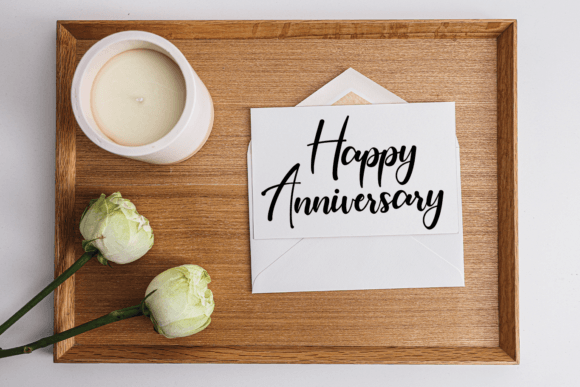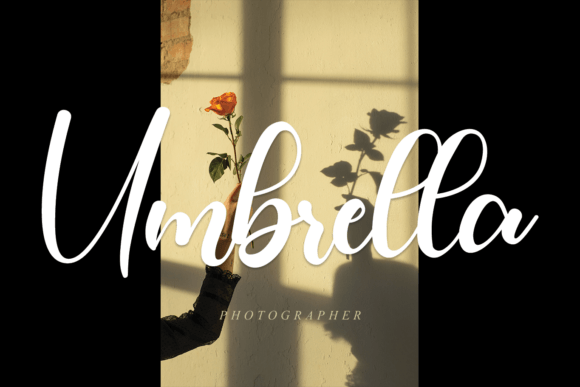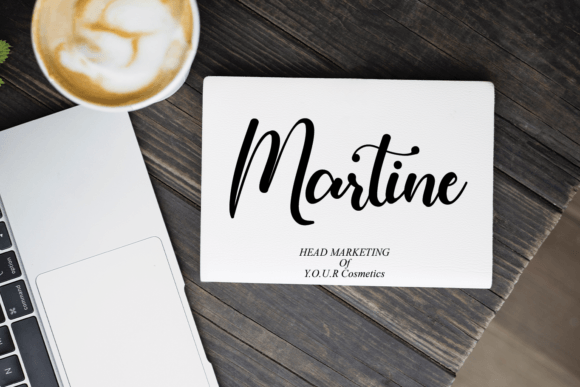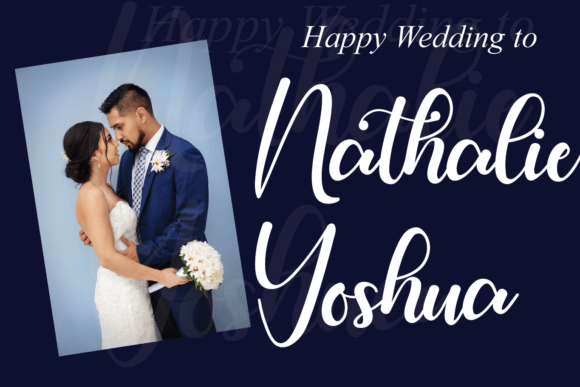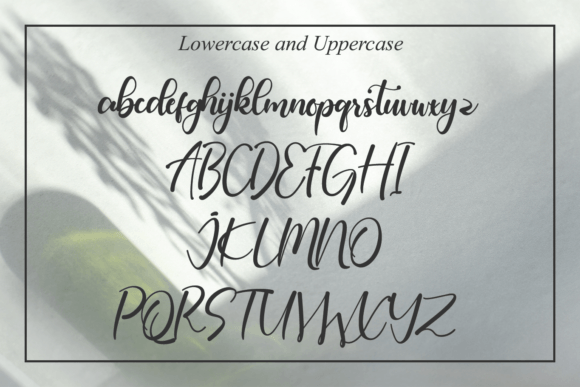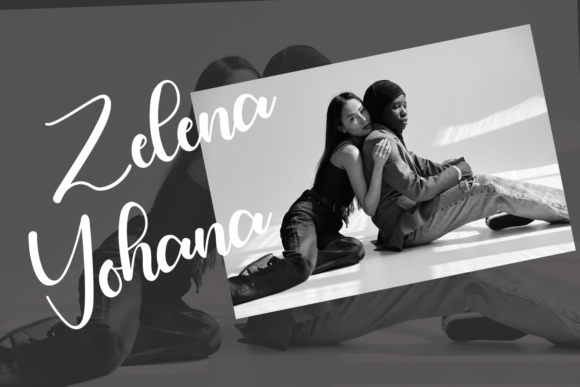
Introducing Anything Font: Elevate Your Designs with Elegance
Are you on the hunt for a font that adds a touch of luxury and sophistication to your design projects? Look no further than Anything Font, a sweet and beautiful handwritten font that is sure to captivate your audience. With its unique characteristic of characters dancing along the baseline, this font is perfect for designers and crafters who want to create stunning visual content.
The Charm of Anything Font
Anything Font boasts a distinctive handwritten style that exudes elegance and refinement. Its flowing curves and carefree vibe make it an excellent choice for a wide range of design projects, from wedding invitations and branding materials to social media graphics and digital products. The font’s dancing characters add a playful touch, injecting personality and whimsy into your designs.
Key Features of Anything Font
- Handwritten style: Anything Font features a genuine handwritten look that adds a personal touch to your designs.
- Dancing characters: The font’s unique characteristic of characters dancing along the baseline creates a lively and dynamic feel.
- Luxury spark: With its elegant and refined appearance, Anything Font is perfect for adding a touch of luxury to your designs.
- Versatile: This font is suitable for a wide range of design projects, from digital products to print materials.
Why Choose Anything Font?
There are many fonts available, but Anything Font stands out from the crowd due to its unique features and versatility. Here are some compelling reasons to choose Anything Font for your next design project:
- Easy to read: Despite its elegant and cursive appearance, Anything Font is easy to read, making it perfect for body text and headings.
- Customizable: You can adjust the font size, color, and style to suit your design needs.
- Time-saving: With Anything Font, you can create stunning designs quickly and efficiently, saving you time and effort.
- Unique designs: The font’s dancing characters ensure that your designs will stand out from the crowd and leave a lasting impression.
Using Anything Font in Your Designs
Anything Font is an excellent addition to any design project, and here are some ideas to get you started:
- Wedding invitations: Add a touch of elegance and sophistication to your wedding invitations with Anything Font.
- Branding materials: Use Anything Font to create stunning branding materials, such as logos, business cards, and brochures.
- Social media graphics: Elevate your social media graphics with Anything Font, creating eye-catching posts and stories that engage your audience.
- Digital products: Add a luxury spark to your digital products, such as ebooks, courses, and templates, with Anything Font.
Tips and Tricks for Working with Anything Font
To get the most out of Anything Font, here are some tips and tricks to keep in mind:
- Pair with other fonts: Experiment with pairing Anything Font with other fonts to create a unique and visually appealing design.
- Adjust font size and color: Adjust the font size and color to suit your design needs and ensure readability.
- Use in combination with images: Combine Anything Font with high-quality images to create stunning visual content.
| Font Name | Anything Font |
| Author | Behind the ink |
Anything Font is a beautiful and elegant handwritten font that adds a luxury spark to any design project. With its unique characteristic of characters dancing along the baseline, this font is perfect for designers and crafters who want to create stunning visual content. Whether you’re working on wedding invitations, branding materials, social media graphics, or digital products, Anything Font is an excellent choice. So why wait? Download Anything Font today and elevate your designs with elegance and sophistication!